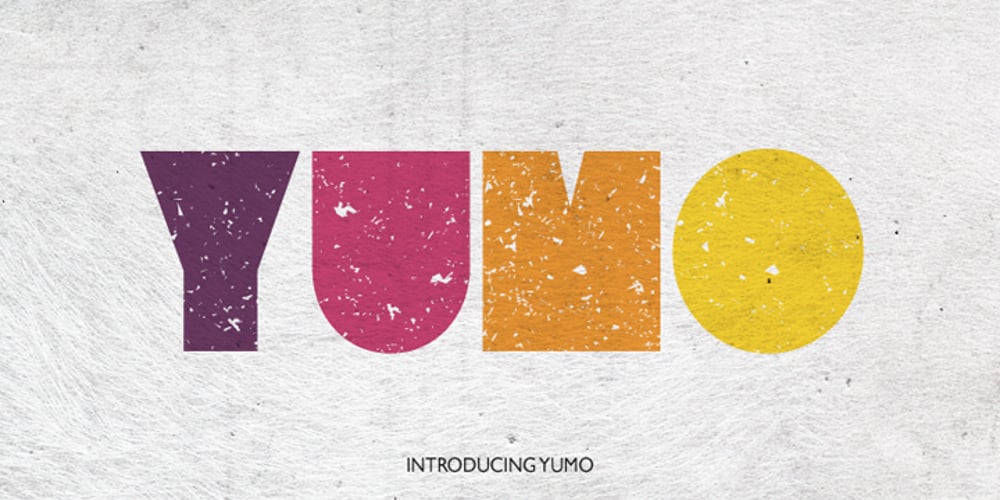
Yumo Font Family was designed by Alex Haigh and published by HyperFluro. Yumo contains 1 styles and family package options. Yumo is a new, textured remix of the original 2010 Yume typeface, and has plenty to offer of its own. Angular and blocky, this typeface creates impactful text with a hint of playfulness, expanded upon by its rough finish. There are no extraneous edges to this font because most of them have been subsumed into the characters themselves, so any sharpness it may have from the squared corners is removed by the lack of thin strokes or serifs. Perfect for headlines and large text that wants to stand out, Yumo’s big, bold text will help your message make an impact. Playing with colours on the textured surface only helps to strengthen this effect, so that Yumo will blow people away, whatever you want to say.